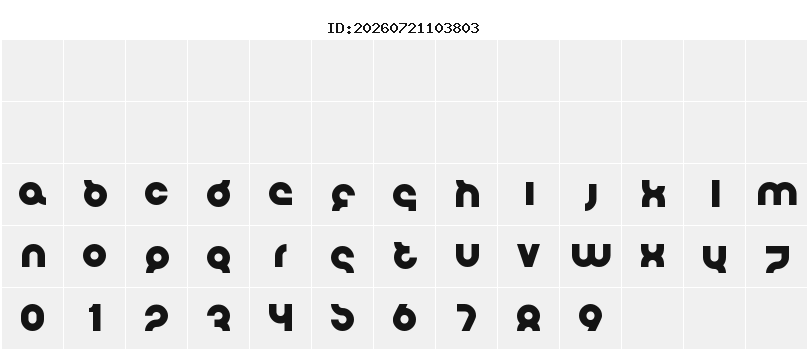
Flirt Bobo Preview
• Font Name: Flirt Bobo
• Designer: Federico Selmi
• Manufacturer: Flirtallday.net - Federico Selmi
About Flirt Bobo.ttf
Flirt Bobo.ttf is a modern, elegant sans-serif font designed for ultimate readability and visual harmony. Perfect for branding, headlines, web design, and print materials.